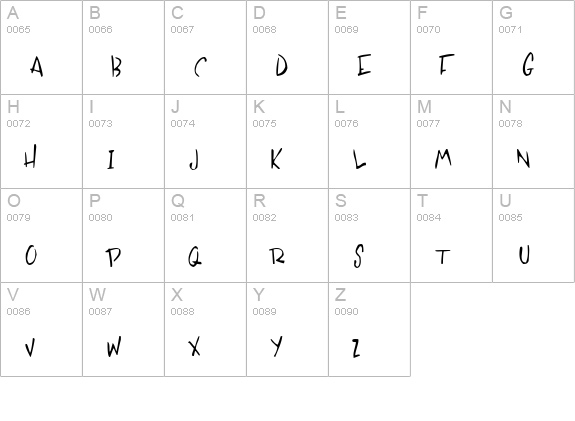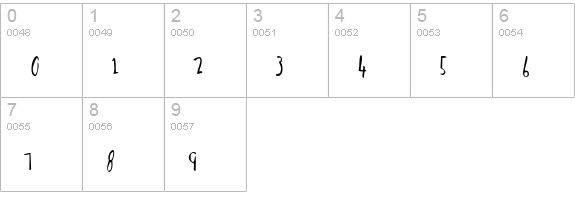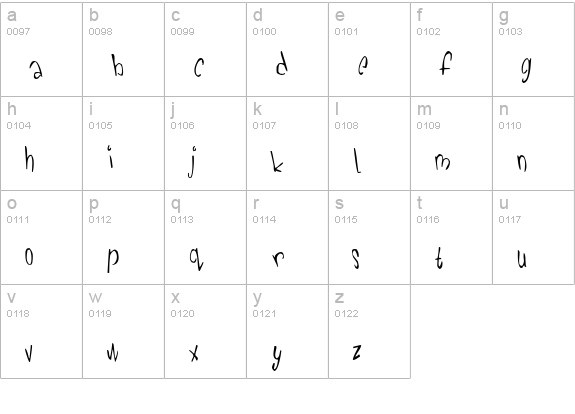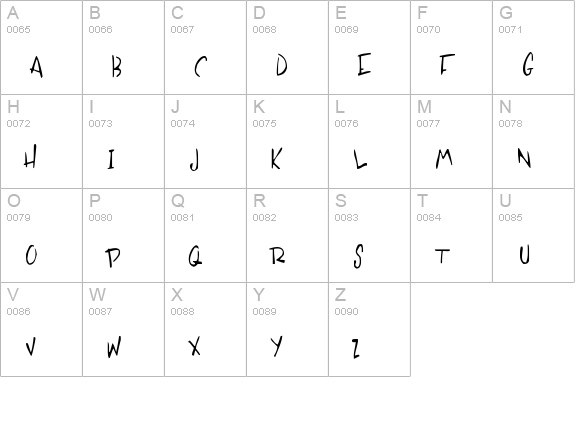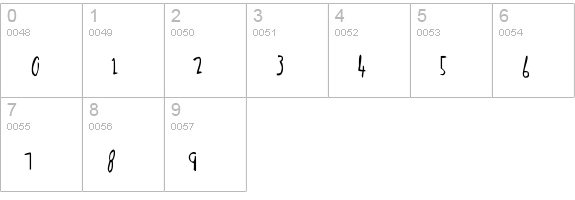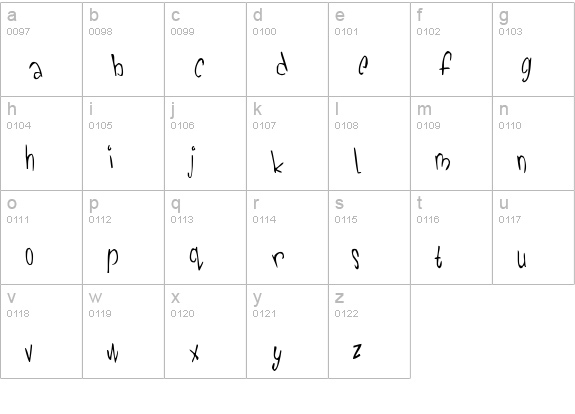
Pickabilly Font Details
Introducing Pickabilly Font - a unique and captivating typeface that effortlessly combines vintage charm with a modern twist. With its bold and playful letterforms, Pickabilly Font is the perfect choice for projects that require a touch of retro nostalgia and a dash of contemporary flair. This font exudes a sense of fun and liveliness, making it ideal for a wide range of design applications. Whether you're creating eye-catching posters, stylish logos, or irresistible social media graphics, Pickabilly Font will instantly grab attention and leave a lasting impression. One of the best things about Pickabilly Font is that it is completely free. Yes, you read that right! This delightful typeface is freely available to download at FontsMarket.com. Now you can add a touch of vintage goodness to your designs without breaking the bank. But don't let its affordability fool you - Pickabilly Font is a high-quality typeface that has been meticulously crafted by experienced designers. Every curve, every stroke, and every detail has been carefully considered to ensure a seamless and visually pleasing result. Whether you're a professional designer or just starting out, Pickabilly Font is incredibly easy to use. Its OpenType features and extensive glyph set offer endless possibilities for customization, allowing you to create truly unique and personalized designs. So why wait? Download Pickabilly Font today and let your creativity run wild. With its free availability at FontsMarket.com, you have the opportunity to enhance your projects with a touch of vintage charm, all while staying within your budget. Get ready to turn heads and make a statement with Pickabilly Font - the perfect blend of past and present.